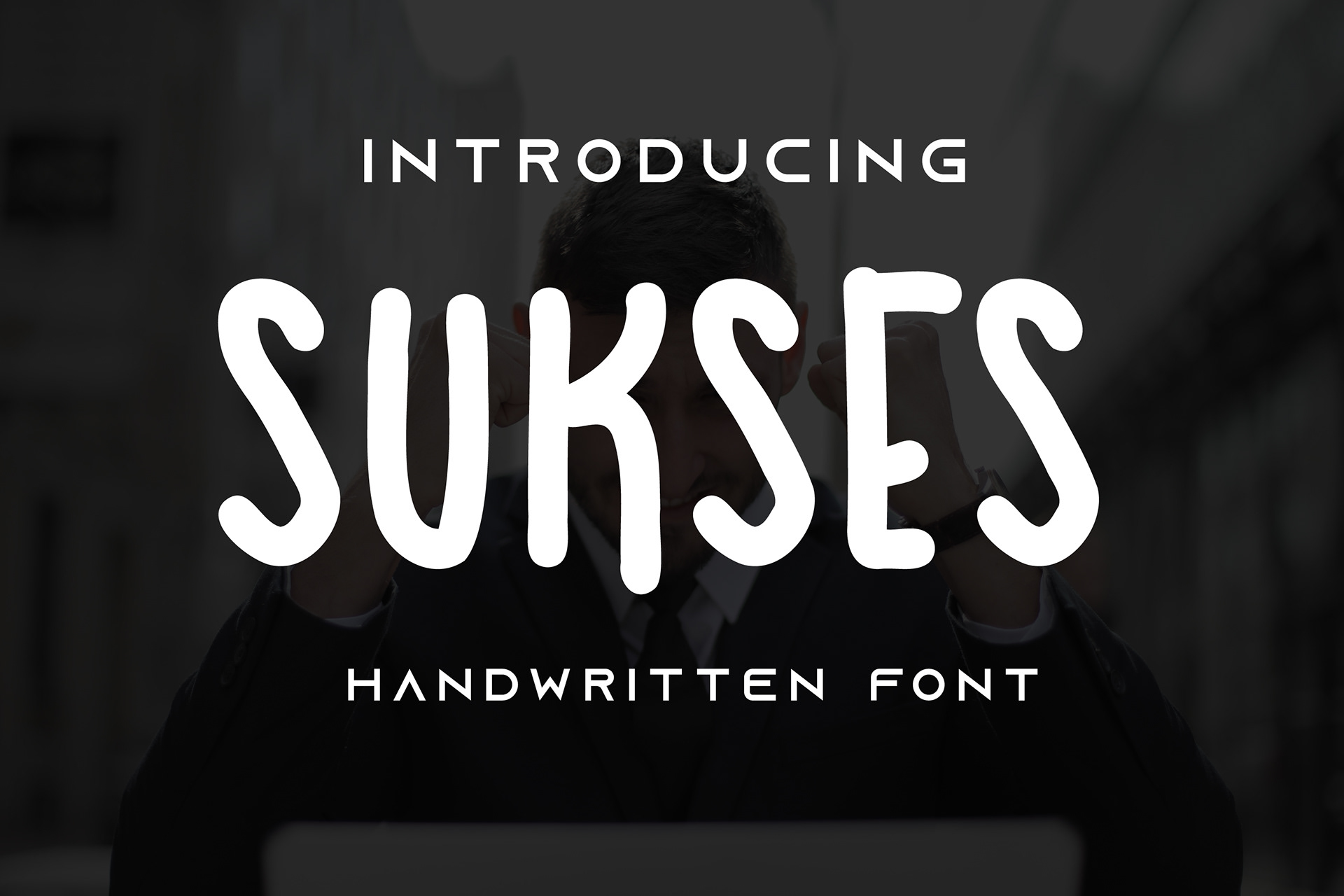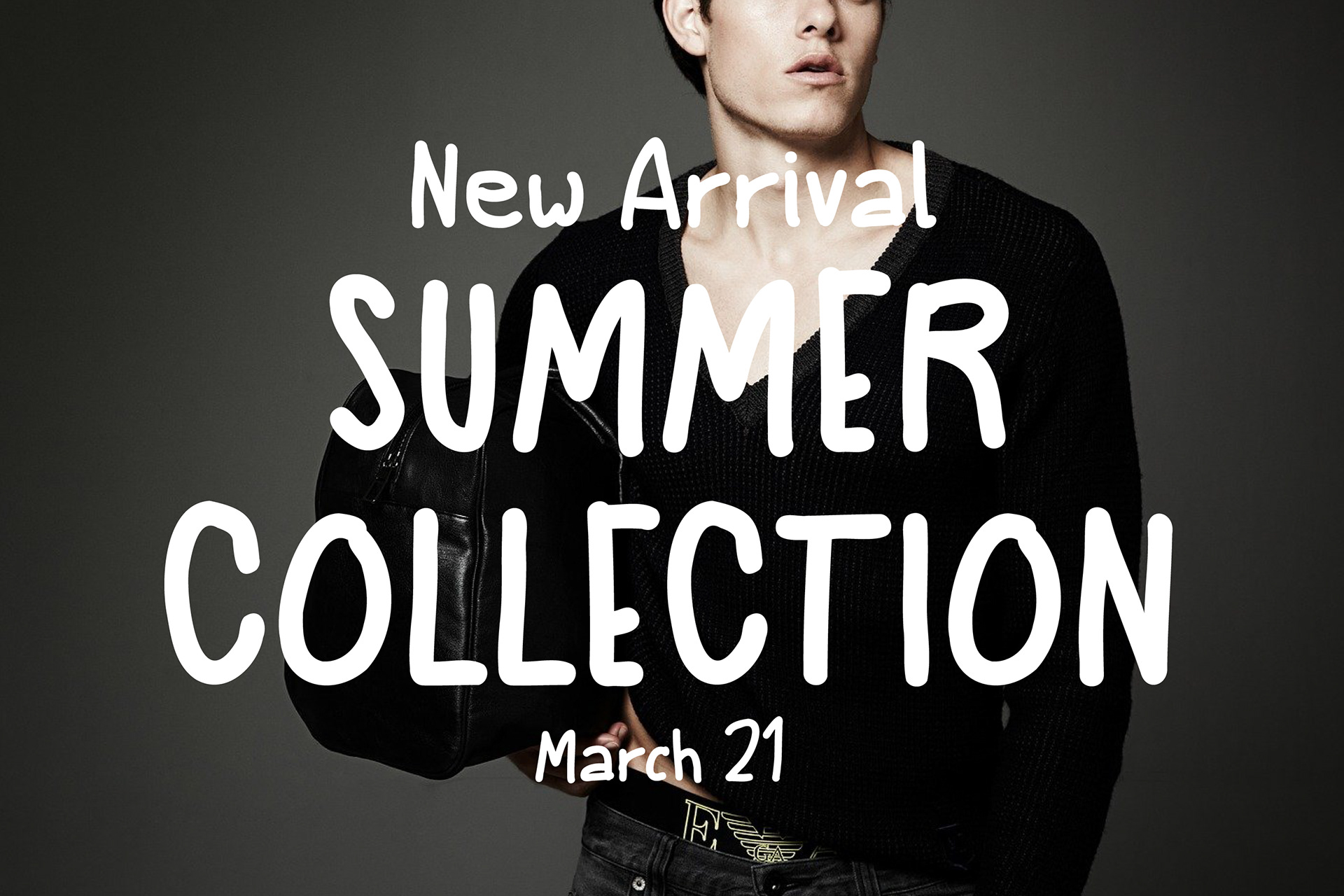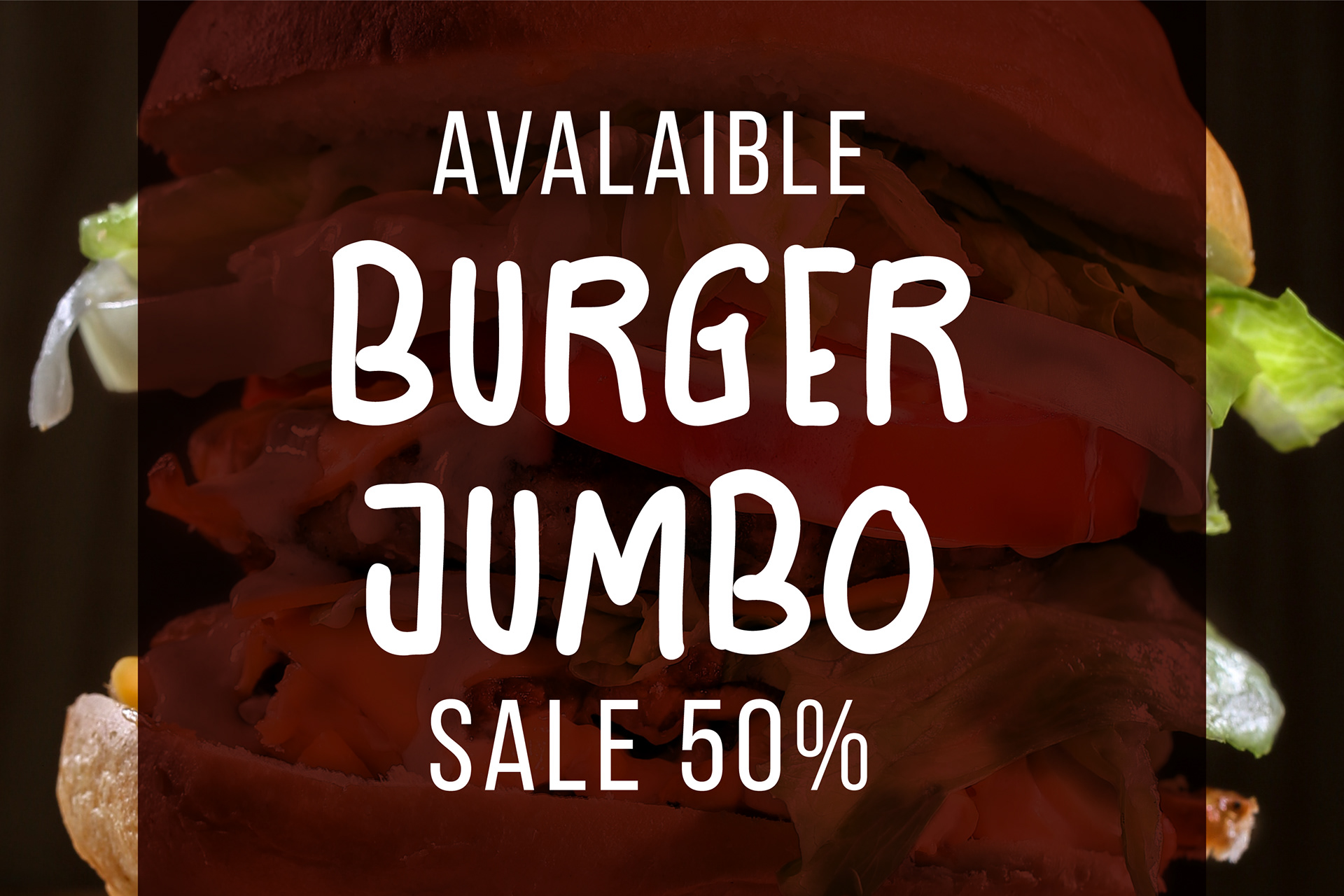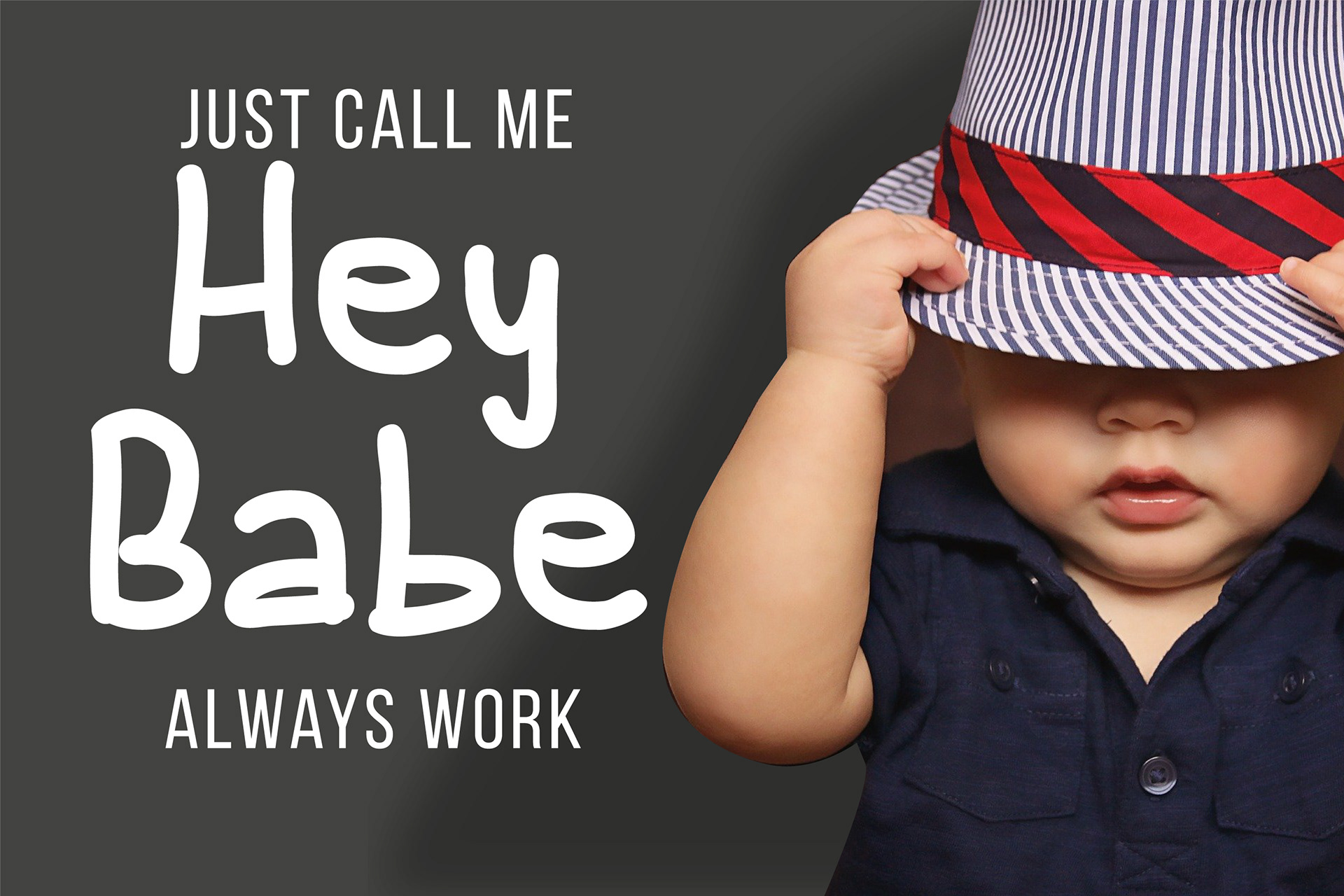
Sukses Handwritten Font is playful handwritten stylish font with line looks casual, stylish and elegant and Fun.
Sukses Handwritten Font perfect for branding projects, logo, wedding designs, social media posts, advertisements, product packaging, product designs, label, photography, watermark, invitation, stationery and any projects that need Playful Font.